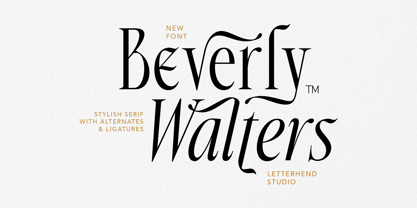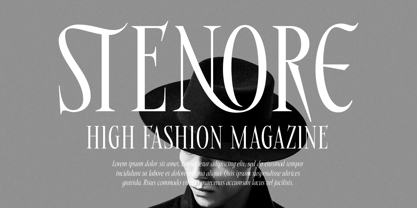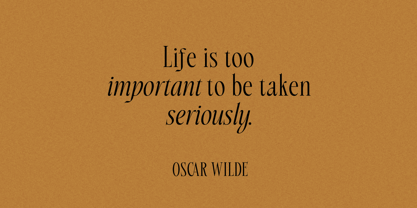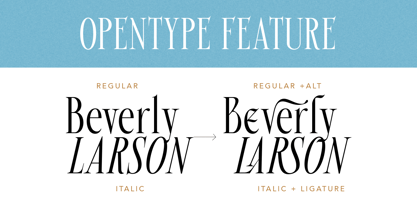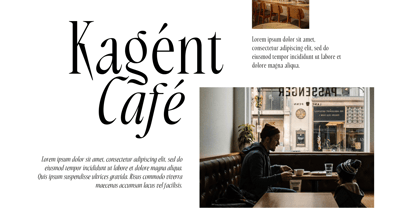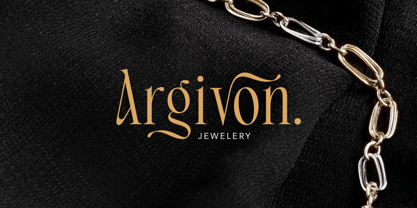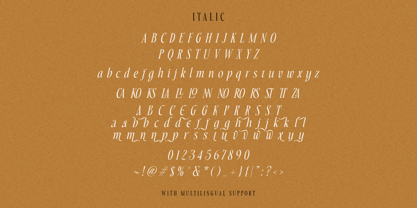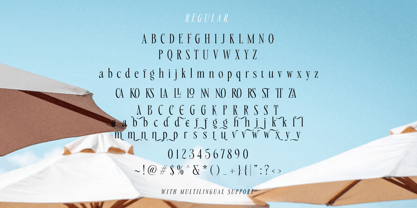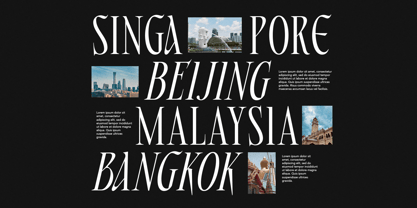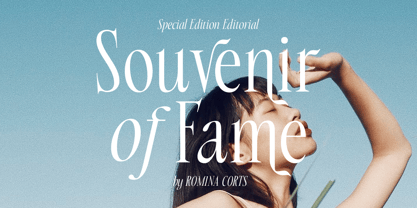
Beverly Walters
by Letterhend
The Beverly Walters Font Family was designed by Hendry Juanda and published by Letterhend. Beverly Walters contains 2 styles and family package options.
Beverly Walters is an elegant and artistic serif font that blends classic sophistication with modern flair. With its graceful curves, dramatic strokes, and stylish alternates, this font adds a luxurious feel to any design. Perfect for branding, fashion editorials, wedding invitations, and high-end packaging, Beverly Walters is crafted for creators who seek timeless beauty and contemporary edge. Includes unique ligatures and alternates to elevate your typography game.
Features :
• Uppercase & lowercase
• Regular & italic
• Numbers and punctuation
• Alternates & Ligatures
• Multilingual Support
Designers: Hendry Juanda